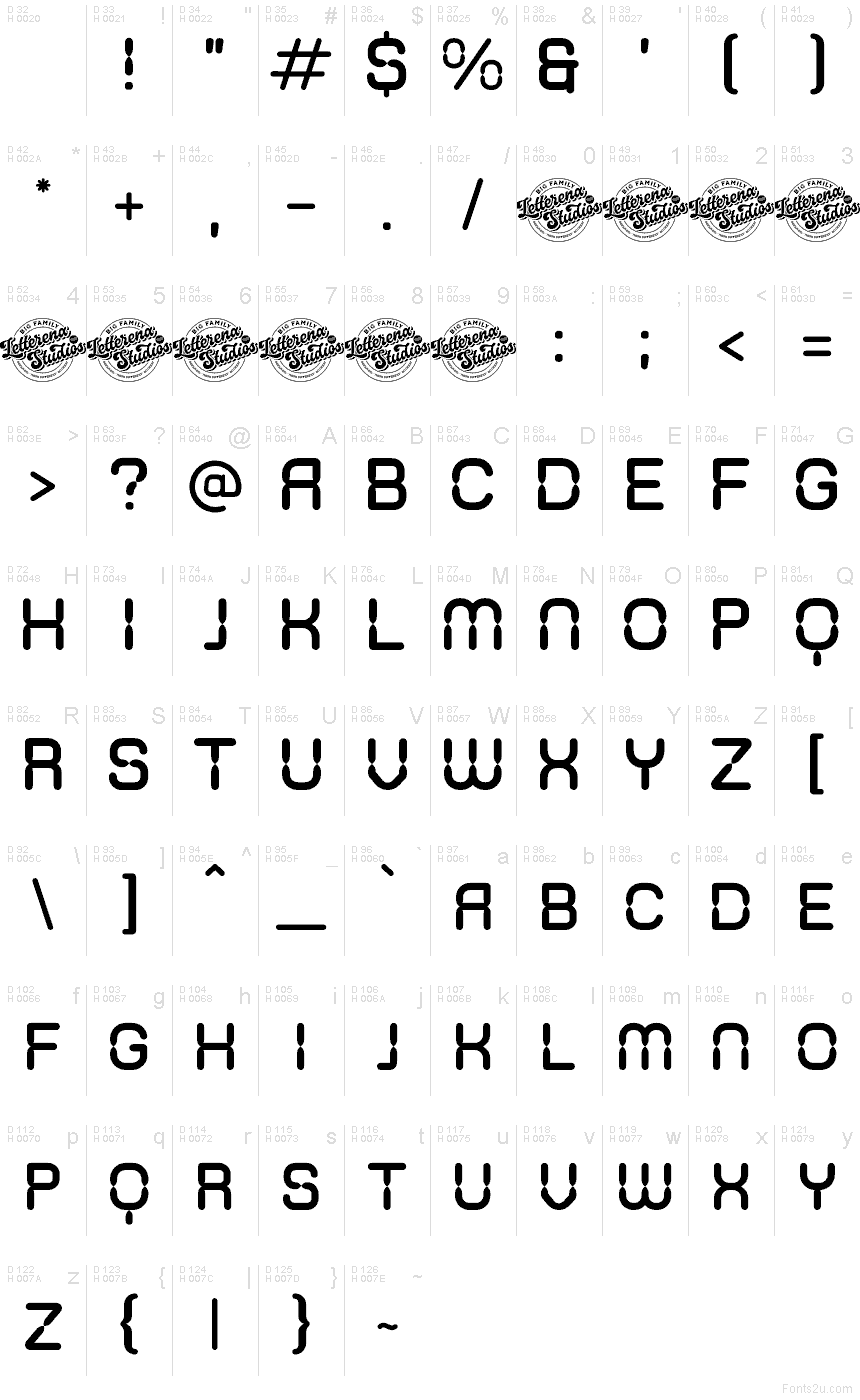
Normens DEMO VERSION
Normens font by Letterena Studios is a free techno display typeface with futuristic and geometric forms. The modern look of its characters is expressed through an experimental design suitable for creating distinctive texts. With sleek letters that support each other, Normens promises readability and unique appearances for all your projects.
Use this marvelous font in poster designs, book covers, branding, packaging designs, music covers, video games design, electronic devices presentation pages and magazines advertisements. Its boldness will confidently accentuate subtitles on video projects (ex: movies).